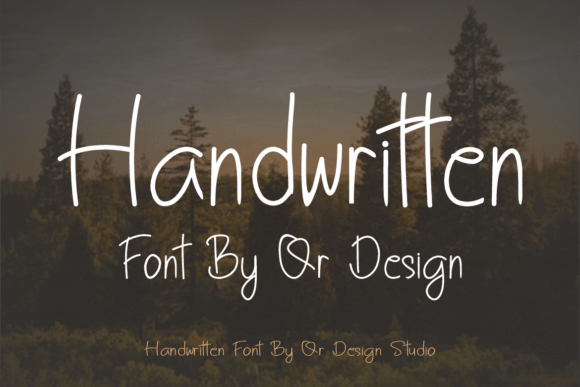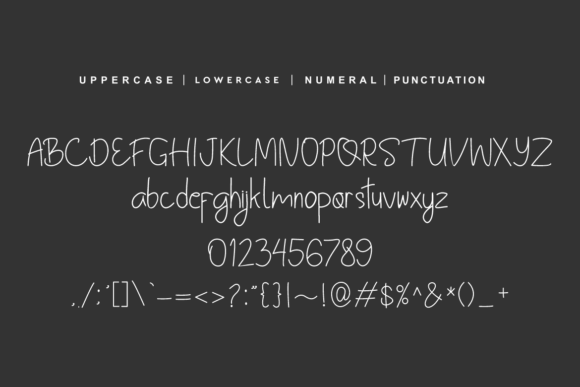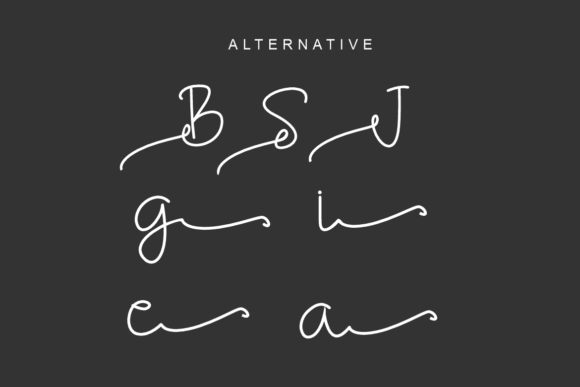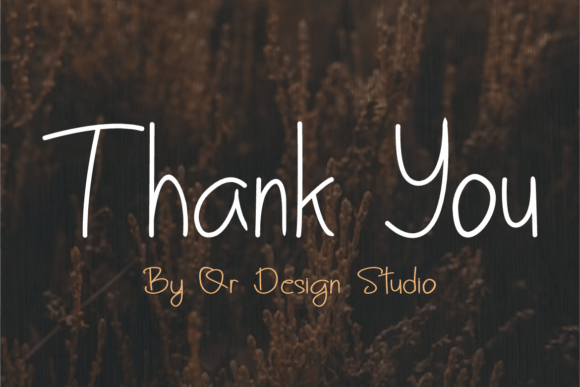
Introduction to Juliokutig Font
There’s something magical about stumbling upon the perfect design element for your creative project. For many of us, it’s the moment when everything comes together, and our vision starts to take shape. For me, it was the discovery of the Juliokutig Font – a delicate, elegant handwritten font that has become a go-to design resource for any project that requires a touch of whimsy.
With its sweet and delicate swashes, the Juliokutig Font is a high-quality design element that adds a personal touch to any design. Whether you’re creating letterheads, titles, or stationery, this font is sure to make your work stand out. And the best part? It’s available for free download, complete with a transparent background, making it easy to incorporate into your designs.
For designers, having access to high-quality design elements like the Juliokutig Font is invaluable. It allows us to bring our creative visions to life with ease and precision, and to produce work that is truly exceptional. In this article, we’ll take a closer look at the Juliokutig Font and explore its many uses and benefits.
Key Features of Juliokutig Font
- Unique and Creative Design: Juliokutig Font is a high-quality design resource ideal for creative projects requiring a unique touch.
- Large Character Set: Juliokutig Font includes a large character set, covering a wide range of languages and alphabets, making it a versatile design resource.
- High Resolution: The font is designed at a high resolution, ensuring crisp and clear text display, even at large sizes.
- Perfect for Digital and Print Design: Juliokutig Font is suitable for both digital and print design projects, including website design, social media graphics, and print materials.
Honest Review: Juliokutig Font
I recently stumbled upon the Juliokutig Font, and I must say it’s been a game-changer for my creative project. The high quality of this font has truly elevated the design of my work, and I’m excited to share my thoughts on it.
What works well: ✨ The Juliokutig Font is incredibly versatile and can be used for a wide range of creative projects. The clean and modern design makes it perfect for both digital and print media. The font is also available for free download, which is a huge plus. Additionally, the transparent background option allows for seamless integration with any design.
- Wide range of creative applications
Any limitations: ⚠️ While the Juliokutig Font is an excellent design resource, it may not be suitable for projects requiring a more rustic or vintage feel. The modern design may not be the best fit for those types of projects.
Overall, I’m thoroughly impressed with the Juliokutig Font. It’s a high-quality design resource that’s perfect for any creative project. I highly recommend giving it a try and seeing how it can elevate your work.
The Juliokutig Font is a unique and high-quality design resource ideal for creative projects. With a transparent background, this font can be easily customized to fit any design aesthetic.
Tips for Getting the Most Out of the Juliokutig Font
To get the most out of the Juliokutig Font, experiment with different font sizes, colors, and combinations to create unique and eye-catching designs. You can also use the font’s transparent background to create custom graphics and illustrations.
The Juliokutig Font is perfect for a variety of creative projects, including logo design, graphic design, and digital art. Its unique and high-quality design makes it a valuable resource for designers and artists looking to add a professional touch to their work.